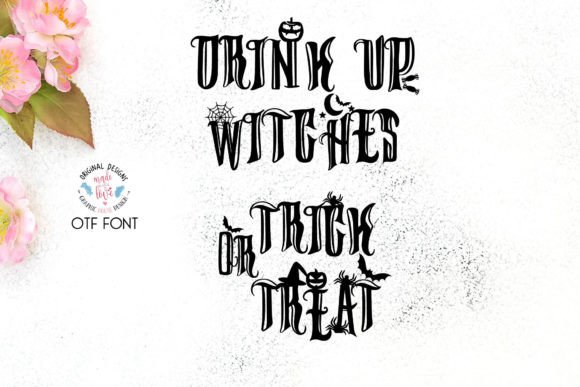
Happy Halloween Font: A Spook-tacular Addition to Your Designs
Are you looking for a font that will add a touch of spooky charm to your Halloween projects? Look no further than the Happy Halloween font! This delightful font is perfect for creating eye-catching invitations, flyers, logos, and crafting creations that will make your designs stand out from the crowd.
What Makes Happy Halloween Font So Special?
Happy Halloween is a charming and spooky decorative font that is specifically designed to capture the essence of the Halloween spirit. Its unique and playful design makes it ideal for a wide range of projects, from invitations and flyers to logos and crafting creations. Whether you’re a designer, crafter, or simply someone who loves Halloween, this font is sure to become a favorite in your collection.
Key Features of Happy Halloween Font
- Charming and Spooky Design: The Happy Halloween font features a unique and playful design that is perfect for adding a touch of spooky charm to your projects.
- Highly Versatile: This font is ideal for a wide range of projects, including invitations, flyers, logos, and crafting creations.
- Scalable: This font is highly scalable, making it perfect for use in both large and small projects.
Uses for Happy Halloween Font
The Happy Halloween font is perfect for a wide range of projects, including:
- Halloween Invitations: Create spooky and eye-catching invitations for your Halloween party or event.
- Flyers and Brochures: Design eye-catching flyers and brochures for your Halloween-themed business or event.
- Logos and Branding: Use the Happy Halloween font to create a unique and memorable logo for your Halloween-themed business or product.
- Crafting Creations: Add a touch of spooky charm to your crafting creations, such as Halloween-themed cards, gift tags, and decorations.
Tips for Using Happy Halloween Font
Here are a few tips for using the Happy Halloween font in your projects:
- Experiment with Different Sizes and Colors: Don’t be afraid to experiment with different sizes and colors to find the perfect combination for your project.
- Pair with Other Fonts: Consider pairing the Happy Halloween font with other fonts to create a unique and eye-catching design.
- Use in Combination with Images: Use the Happy Halloween font in combination with images, such as Halloween-themed graphics and illustrations, to create a visually appealing design.